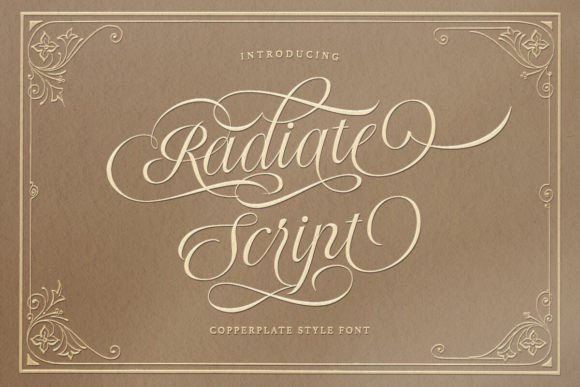
Radiate Script: A Wedding Font with Endless Possibilities
You know the feeling when you see a piece of typography that just clicks? It’s not just a collection of letters; it has a pulse, a specific vibe that tells you exactly what it’s about. That is the experience you get when you first open up Radiate Script. It isn’t just another script font added to the pile of digital assets. It is a distinctly stylish premium font that captures a modern romanticism, making it an immediate go-to for anyone designing wedding invitations or high-end branding. However, the true power of this typeface lies in its versatility. It is the kind of design asset that can elevate a simple logo into a memorable piece of art, or turn a standard social media quote into a viral graphic.
At its heart, Radiate Script is defined by its fluidity and elegance. It features the kind of natural, flowing curves that mimic high-quality hand lettering, but it maintains a structural integrity that ensures it remains legible even at smaller sizes. The personality of this font is sophisticated yet approachable. It avoids the overly scratchy look of some handwritten fonts while steering clear of the stiff formality of traditional calligraphy. This balance makes it a perfect fit for a wide array of creative projects. Whether you are a small business owner looking to refresh your brand identity, or a crafter working on a personalized gift, the visual appeal of this typeface is undeniable.
The Power of Swash Alternates
What truly sets Radiate Script apart from other script fonts on the market is the sheer volume of swash alternates included in the package. If you have ever struggled to make a word look "finished" or felt that a particular letter combination looked awkward, this feature is your solution. The alternates allow you to swap out standard letters for versions with extended tails, loops, and flourishes. This gives you, the designer, incredible control over the final output. You can make a header look incredibly ornate and luxurious, or keep it clean and simple for a modern web design project.
For example, imagine you are working on logo design for a boutique clothing store. You type out the name, but the capital "S" feels a bit plain. With Radiate Script, you can cycle through alternate versions of that specific character until you find a swash that perfectly frames the rest of the word. This level of customization is usually reserved for custom lettering, but having it built into a commercial font saves you hours of time in Adobe Illustrator. It allows you to create a visual hierarchy that guides the viewer’s eye exactly where you want it to go.
Practical Applications: Beyond the Wedding Invite
While the description highlights wedding invitations—and it certainly excels there—the utility of Radiate Script extends far beyond nuptials. In the world of editorial design, this font shines as a pull-quote generator. Large blocks of serif fonts or sans serif fonts can be dense and tiring to read. Breaking up that text with a stylistic script creates breathing room and adds a touch of humanity to the page. It tells the reader, "Pause here; this part is important."
For entrepreneurs and content creators, the applications are endless. Think about packaging design. If you sell artisanal coffee or handmade soils, the label needs to convey quality and care. Radiate Script provides that "handcrafted" feel without sacrificing the professionalism required for retail shelves. It also performs exceptionally well in social media graphics. In a fast-scrolling environment, a bold, elegant script can stop the thumb. It adds a level of engagement that standard system fonts simply cannot match.
Pairing Fonts for Professional Results
One of the most common questions regarding display fonts like Radiate Script is how to pair them. Because this font has such a strong personality, it requires a partner that plays a supporting role rather than competing for attention. As a general rule of thumb in modern typography, you should pair a script with something neutral and structured.
A classic sans serif font with clean lines works beautifully. The geometric simplicity of the sans serif grounds the ornate nature of the script, creating a balanced composition. Alternatively, a sturdy, old-style serif font can create a vintage, romantic aesthetic that works well for editorial design or book covers. When testing your font pairing, pay close attention to the x-height. You want the body text to be easily readable, while the Radiate Script serves as the focal point for headers or logos.
When investing in a premium font, you need to look past the aesthetics and consider the technical implementation. Radiate Script supports multiple languages, which is a massive advantage for global brands or publishers working with diverse audiences. There is nothing worse than finding the perfect typeface only to realize it lacks the diacritics necessary for French, Spanish, or German text. This font eliminates that headache, ensuring your brand identity remains consistent across different regions.
Final Thoughts on Radiate Script
Choosing a typeface is about finding a voice for your project. Radiate Script speaks with clarity, elegance, and a touch of flair. It is a creative font that empowers designers to produce work that feels custom and high-end. From the intricate swash alternates to its multi-language support, it is built to solve real-world design problems. Whether you are crafting a wedding invitation suite, building a brand identity for a new startup, or designing a magazine cover, this script offers the flexibility and sophistication needed to make your work stand out. It is more than just a font; it is a design asset that radiates style.